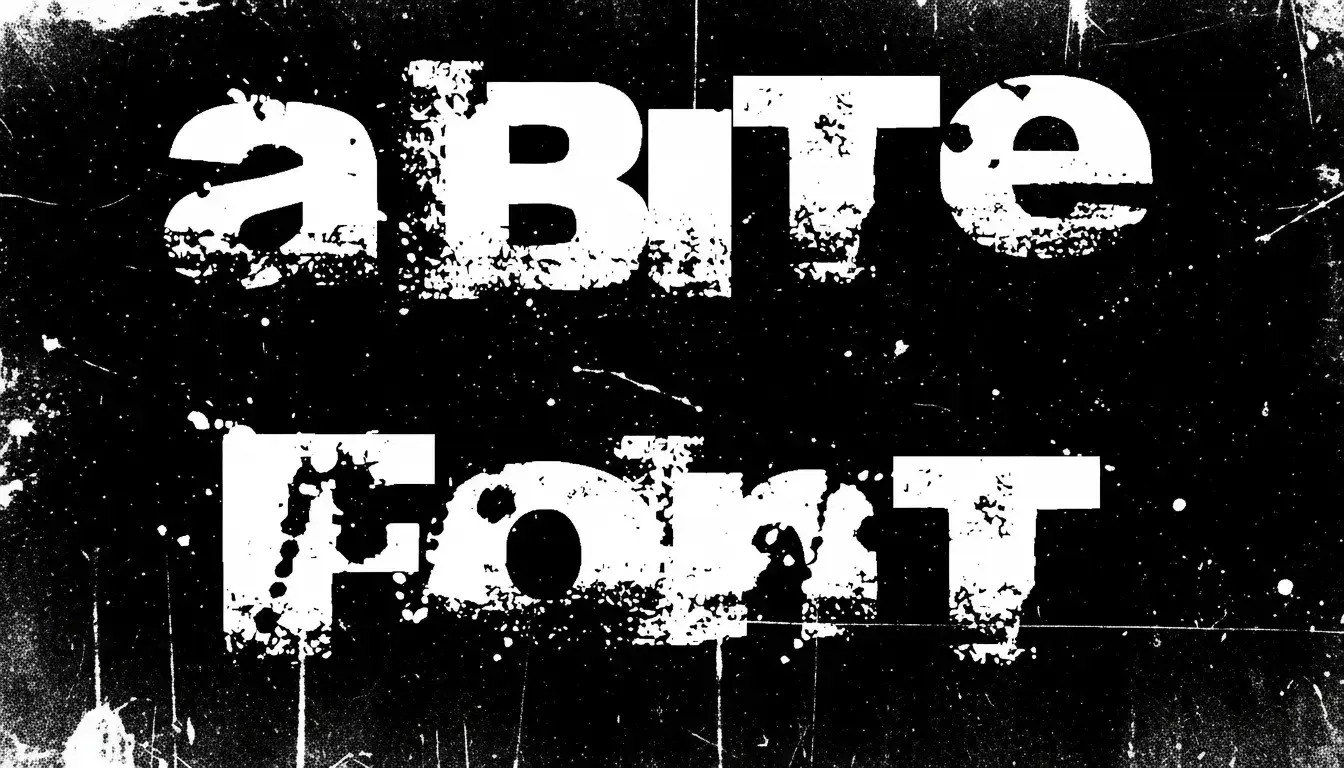
A Bite Font
A Bite
- Designer: Billy Argel
What You Can Type With A Bite
A Bite covers the full alphabet in upper and lowercase, plus all ten numbers, so you can set names, dates and prices without switching fonts. Punctuation is limited, so look at the character map if you need a specific symbol. Thanks to its accented letters, it also works for French, Portuguese and Italian, not just English.
Where A Bite Works Best
Designers usually reach for fonts like A Bite when they're making posters, logos and eye-catching headlines. Use it for one standout word or headline and let simpler fonts handle the rest.
Does A Bite support accented letters?
Yes. A Bite includes the accented letters needed for French, Portuguese and Italian, so it works for more than just English.